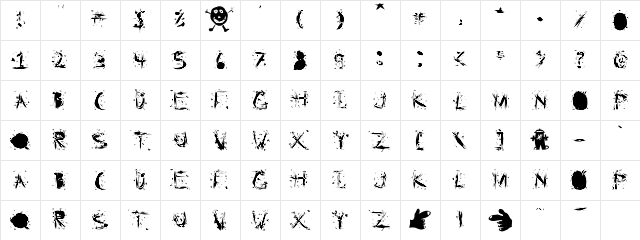
Complete Static Cling Static glyph index. Displaying only characters natively supported by Static Cling Static font.
Static Cling is a composed and adaptable typeface that performs quietly and consistently across a wide range of design contexts.